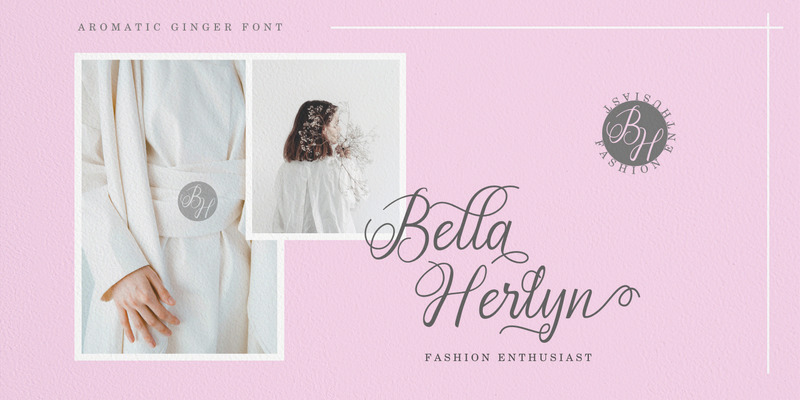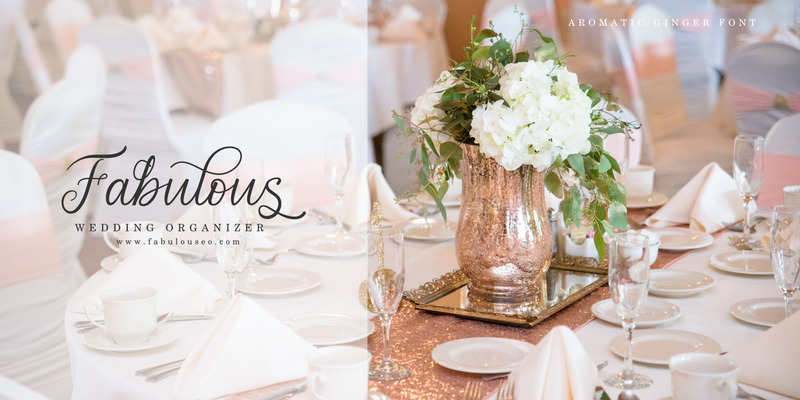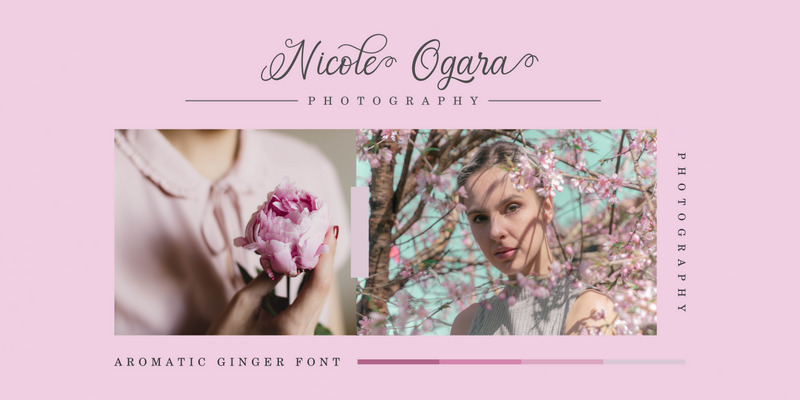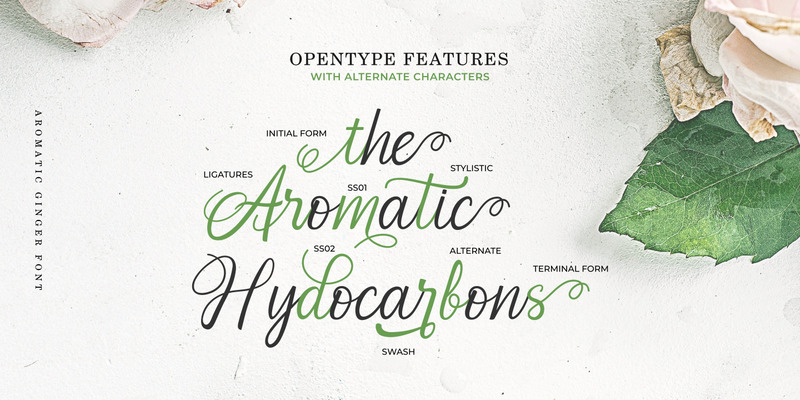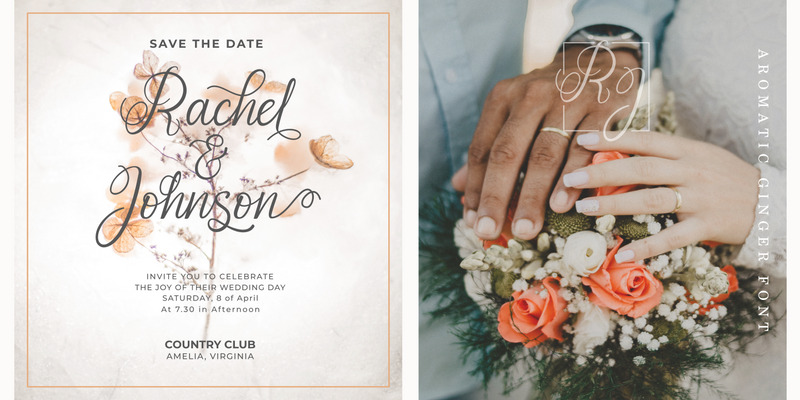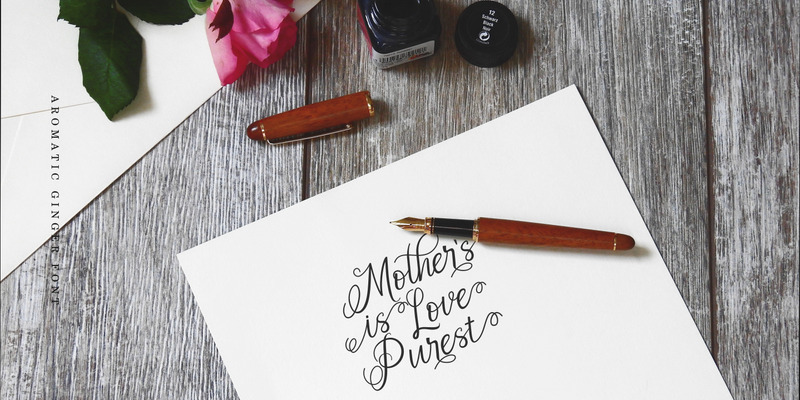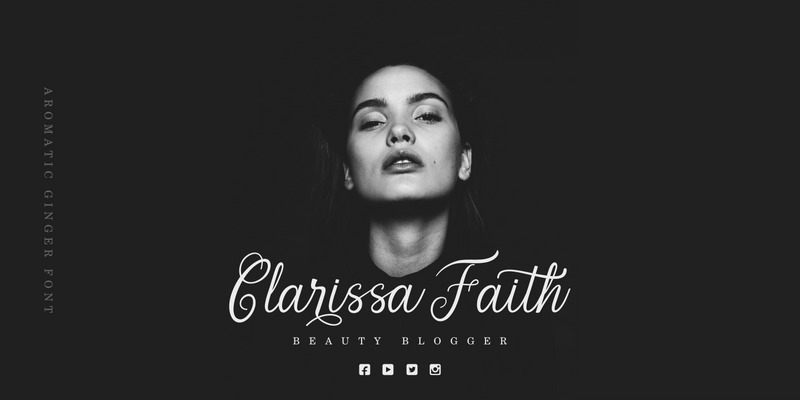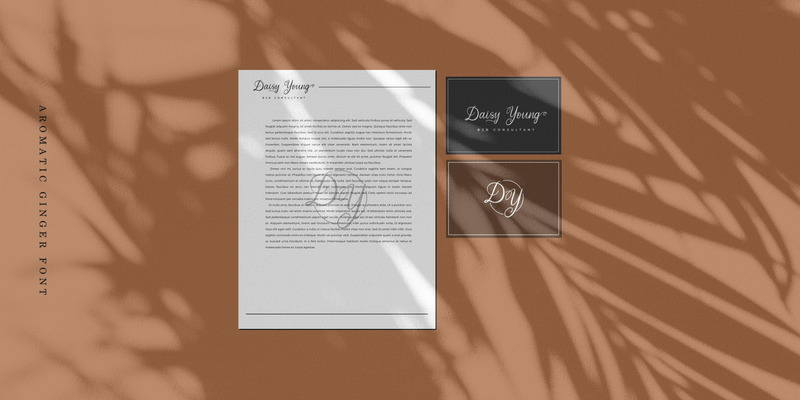
Aromatic Ginger // Calligraphy Font
Introducing an elegant calligraphy font called Aromatic Ginger. This fonts inspired by dip pen calligraphy that every letter made many stylistic alternates like swash, tail and etc. The Aromatic Ginger font is perfect for greeting card, wedding invitation, logotype, personal branding, signature and many more.
• Uppercase and lowercase
• numeral and punctuations
• Opentype features initial and terminal form, swash, alternate, and stylistic alternate.
• Multilingual support more 25 language